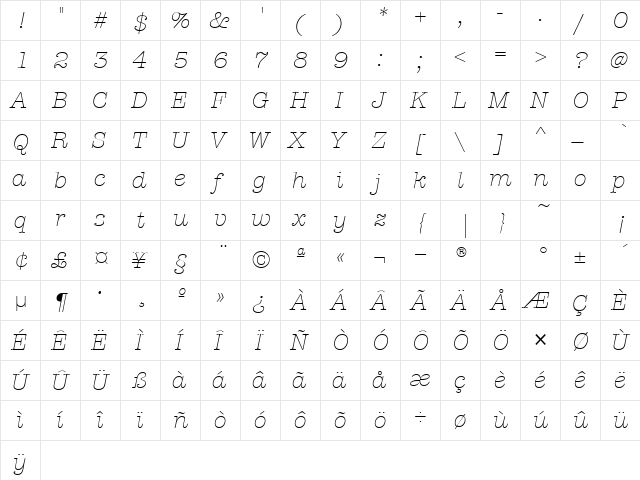
AmTypewriterITCTT LightItalic Font Preview
| Style | LightItalic |
| Foundry | International Typeface Corporation |
| Designer | Tony Stan/Joel Kaden |
Design Context for AmTypewriterITCTT Typeface
AmTypewriterITCTT brings the precise, column-aligned rhythm of monospaced typography to designs that value technical clarity and systematic order. Its italic angle brings a sense of urgency and motion to the letterforms. Its slender proportions lend an understated elegance to any composition.
A natural fit for code editors, technical documentation, developer-focused branding, and terminal-inspired UI.